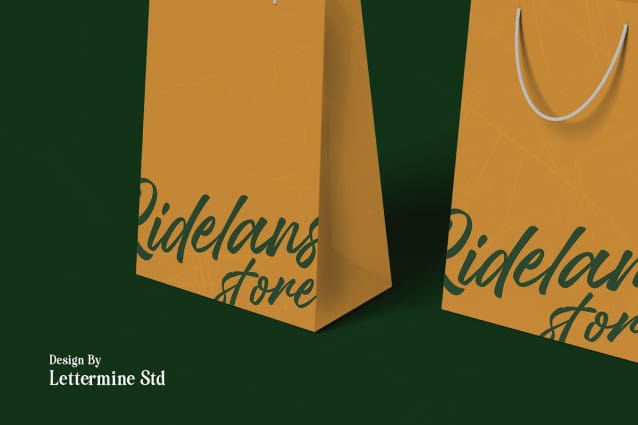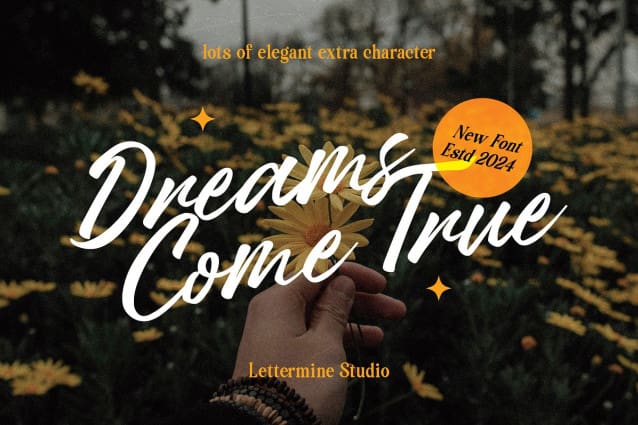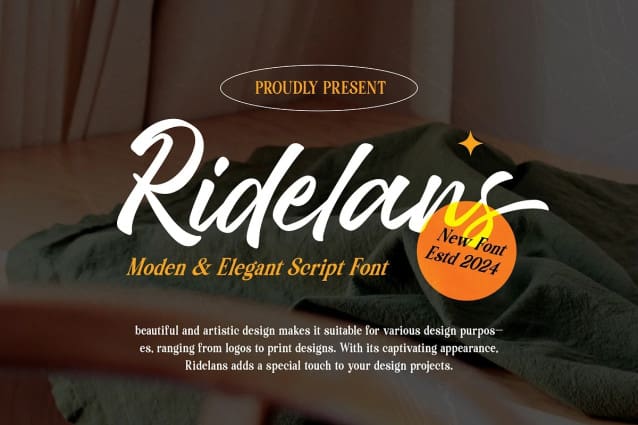
Ridelans Script Font
Ridelans Script Font – Your Ultimate Modern Elegance in Script Typography! Elevate your designs with Ridelans Script Font, a contemporary script font designed to bring sophistication and charm to your projects. Crafted with precision, this font effortlessly blends modern aesthetics with timeless elegance, making it perfect for a wide range of applications.
Features:
Ligatures: Enhance the fluidity of your text with beautifully crafted ligatures.
Alternatives: Experiment with various letterforms to find the perfect style for your design.
Multilingual: Reach global audiences with extensive language support.
Upper and Lowercase: Enjoy versatility in your typography with both uppercase and lowercase letters.
Punctuation: Every detail matters – punctuate your designs flawlessly with RIDELANS.
This font is ideal for:
Wedding Invitations: Create romantic and luxurious invites that leave a lasting impression.
Branding Projects: Establish a sophisticated brand identity that stands out from the crowd.
Packaging Designs: Elevate product packaging with elegant typography that communicates quality.
Social Media Graphics: Capture attention on social platforms with stylish and eye-catching text overlays.
Editorial Designs: Add a touch of refinement to magazines, brochures, and other editorial layouts.